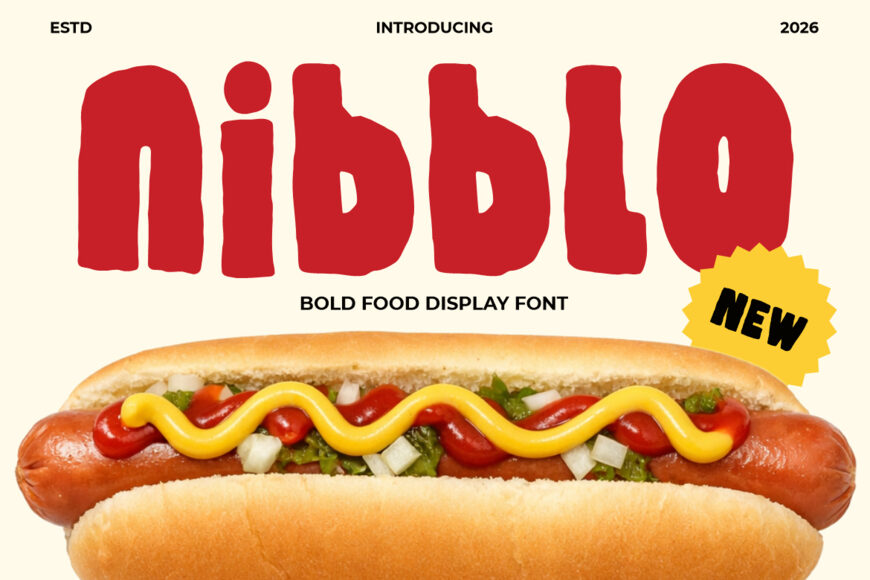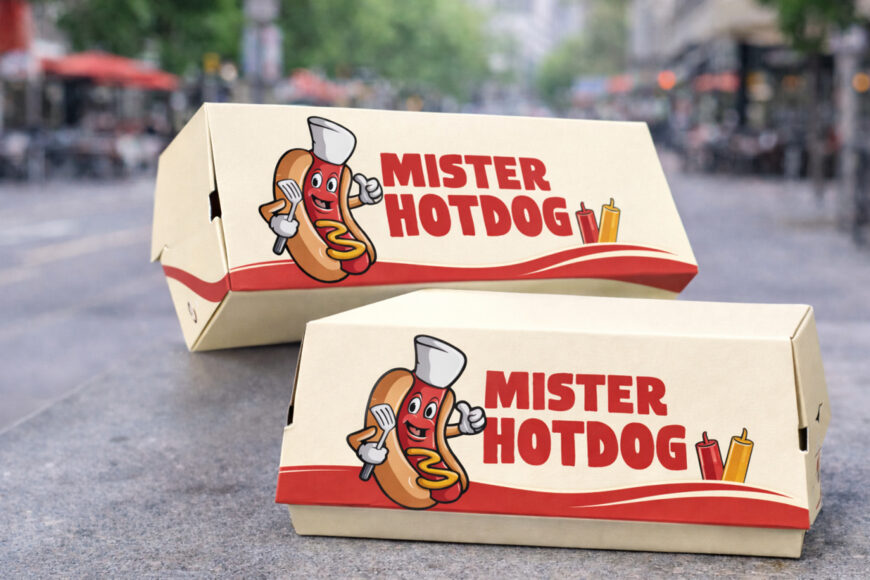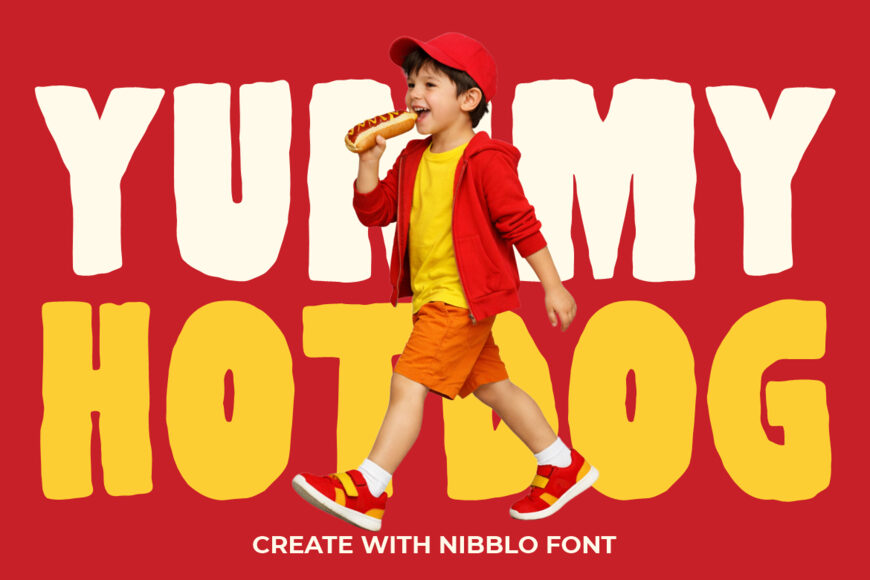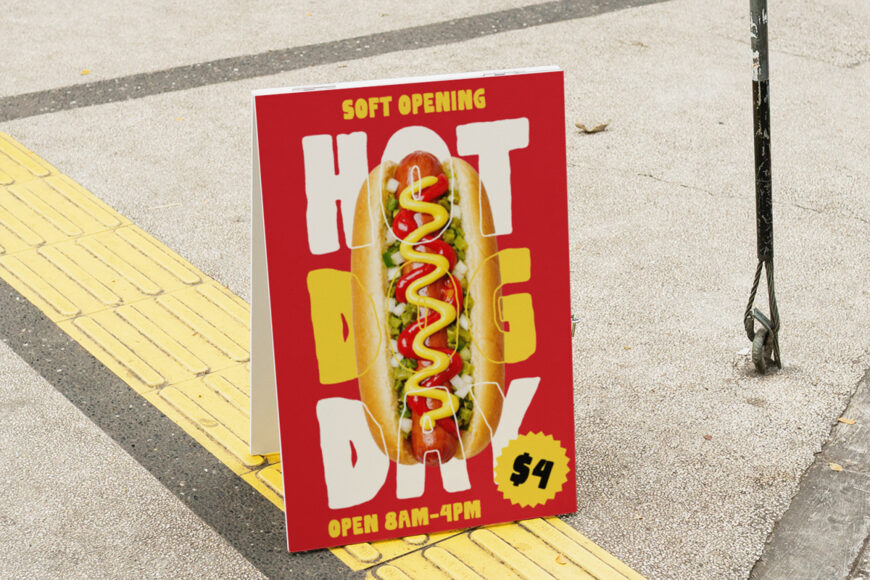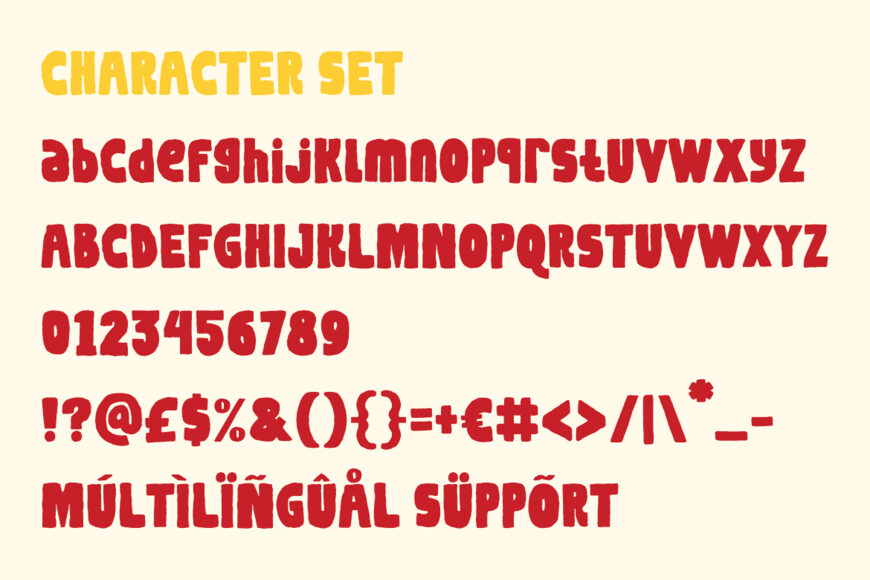
Nibblo Font
Nibblo is a playful food-themed display font with bold, uneven strokes and a hand-drawn finish. Its chunky, slightly irregular letters create a lively, distinctive personality, while the consistent heavy weight keeps the design strong and readable.
Compact proportions, short ascenders, and shallow descenders make it ideal for stacked logos and prominent headings. With its doodle-like texture and casual street-food character, Nibblo suits modern branding that needs to feel fun, friendly, and attention-grabbing rather than formal.